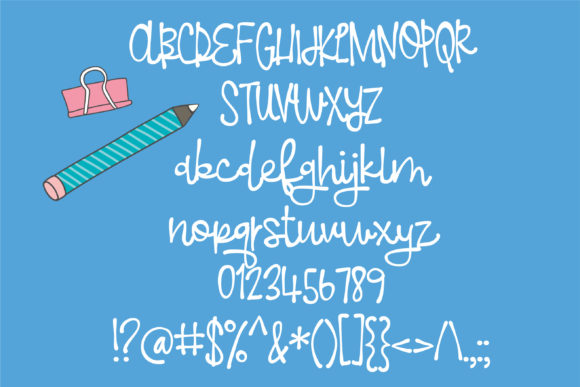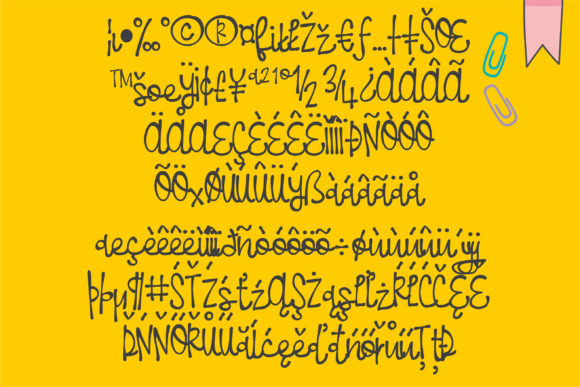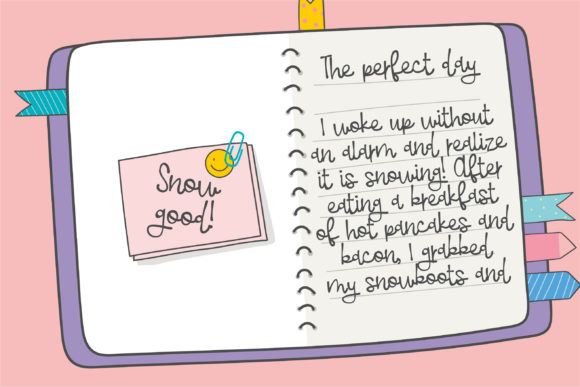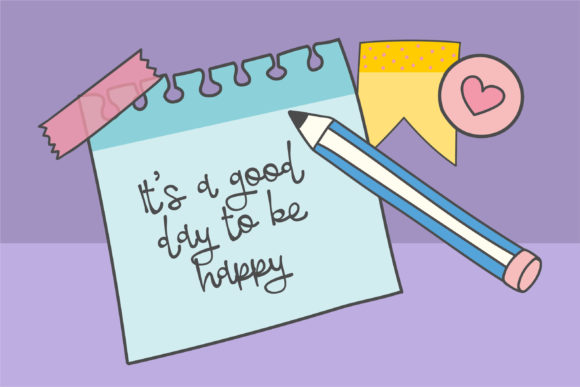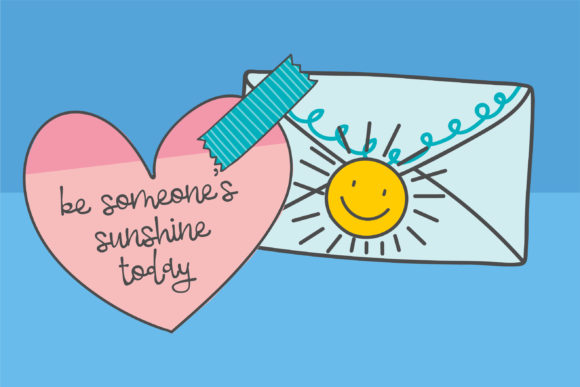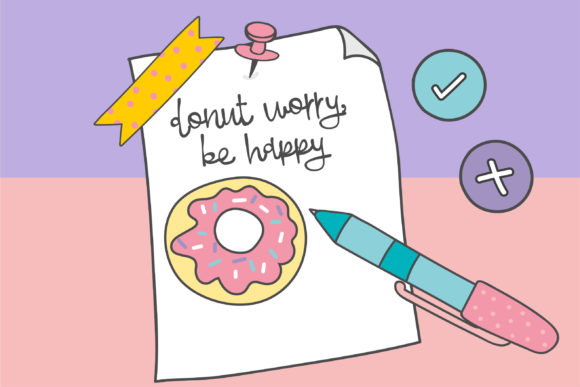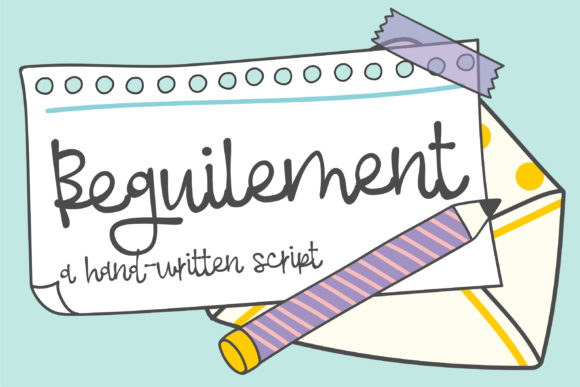
Beguilement Font: A Sweet and Flowing Handwritten Delight
Beguilement Font is a beautiful, sweet, and flowing handwritten font that has captured the hearts of designers and crafters alike. Its simple and well-balanced characters make it incredibly versatile, fitting a wide pool of contexts, both formal and non-formal. In this article, we’ll dive into the world of Beguilement Font, exploring its features, uses, and benefits, as well as provide tips and inspiration for incorporating it into your design projects.
The Charm of Beguilement Font
Beguilement Font boasts a unique charm that sets it apart from other fonts. Its handwritten nature gives it a personal and intimate feel, making it perfect for projects that require a touch of warmth and personality. The font’s simple and well-balanced characters ensure that it remains legible and easy to read, even at smaller sizes. This makes it an excellent choice for body text, headings, and titles.
One of the standout features of Beguilement Font is its versatility. It can be used in a wide range of contexts, from formal to non-formal, making it an excellent addition to any designer’s font library. Whether you’re working on a wedding invitation, a business card, or a social media graphic, Beguilement Font is sure to impress. Its flowing nature also makes it perfect for creative projects, such as handmade crafts, journaling, and scrapbooking.
Design Inspiration with Beguilement Font
Beguilement Font is a font that lends itself well to creative experimentation. Here are a few design inspiration ideas to get you started:
- Wedding Stationery: Use Beguilement Font to create beautiful wedding invitations, save-the-dates, and thank-you cards.
- Handmade Crafts: Add a personal touch to your handmade crafts, such as journals, scrapbook pages, and gift tags.
- Social Media Graphics: Use Beguilement Font to create eye-catching social media graphics, such as quotes, promotions, and announcements.
- Packaging Design: Add a touch of elegance to your packaging design with Beguilement Font, perfect for product labels, tags, and branding materials.
Tips for Working with Beguilement Font
To get the most out of Beguilement Font, here are a few tips to keep in mind:
- Experiment with Pairings: Try pairing Beguilement Font with other fonts to create interesting and unique combinations.
- Play with Size and Color: Experiment with different font sizes and colors to add visual interest to your designs.
- Use it for Headings and Titles: Use Beguilement Font to create beautiful headings and titles that add a touch of personality to your designs.
Beguilement Font is a sweet and flowing handwritten font that is sure to capture your heart. Its simple and well-balanced characters make it incredibly versatile, fitting a wide pool of contexts, both formal and non-formal. With its unique charm and flowing nature, Beguilement Font is perfect for designers and crafters looking to add a touch of warmth and personality to their projects. Whether you’re working on a wedding invitation, a handmade craft, or a social media graphic, Beguilement Font is sure to impress.
Get Creative with Beguilement Font